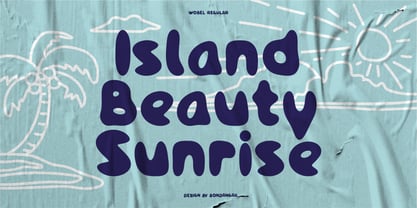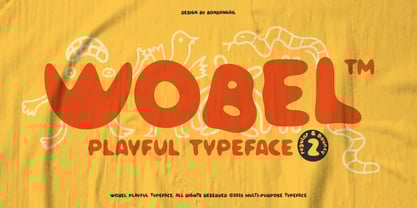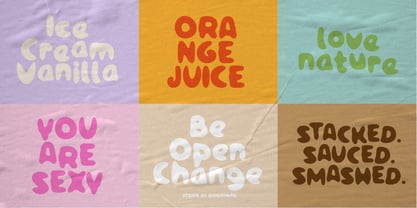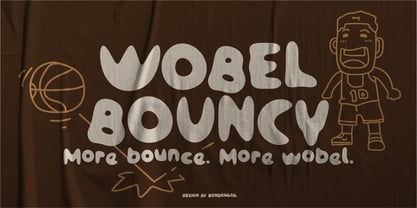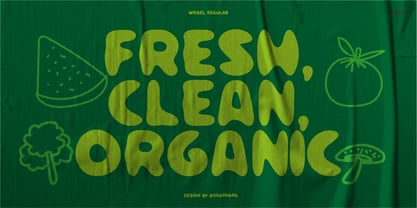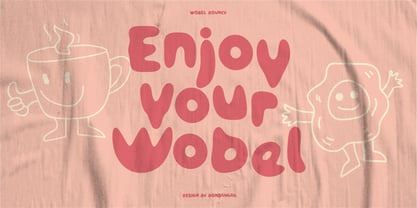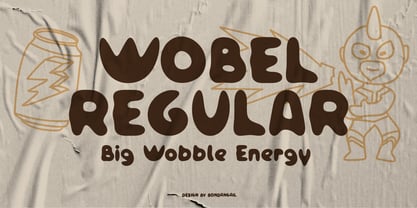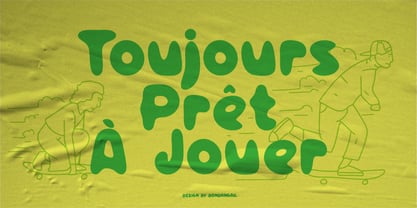
Wobel
by BondanGail
The Wobel Font Family was designed by Bondan Gail Saputro and published by BondanGail. Wobel contains 2 styles and family package options. More about this family
Wobel is a bold, playful display typeface that embraces soft, organic wobble forms, offering a strong visual presence. Its rounded, blob-like shapes and subtle irregularities create a lively, fluid rhythm that feels both friendly and expressive. Designed to stand out, Wobel delivers high impact while maintaining clarity through simple, open counters and smooth curves. Perfect for branding, packaging, posters, and eye-catching headlines. Wobel blends retro bubble aesthetics with a modern experimental twist—making it ideal for projects that require a fun, distinctive, and memorable voice. Wobel includes: • 2 style Typefaces Regular and Bouncy • Uppercase, Lowercase, Numeral, Symbol and Punctuation • Multilingual • Works on PC & Mac • Accessible in Adobe Illustrator, Adobe Photoshop, Adobe InDesign, even work on Microsoft Word. • Image used: All photographs/pictures/vectors used in the preview are not included, they are intended for illustration purposes only.
Designers: Bondan Gail Saputro
Foundry: BondanGail